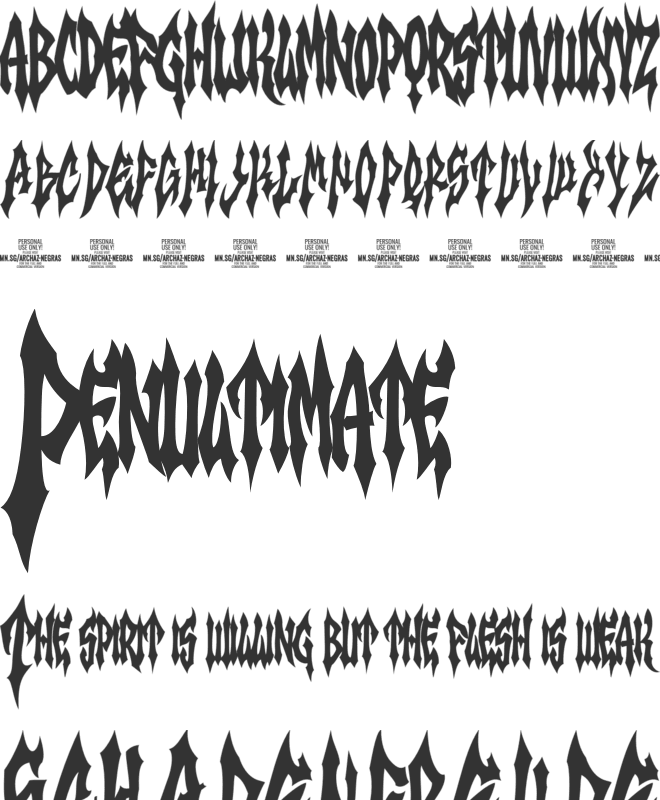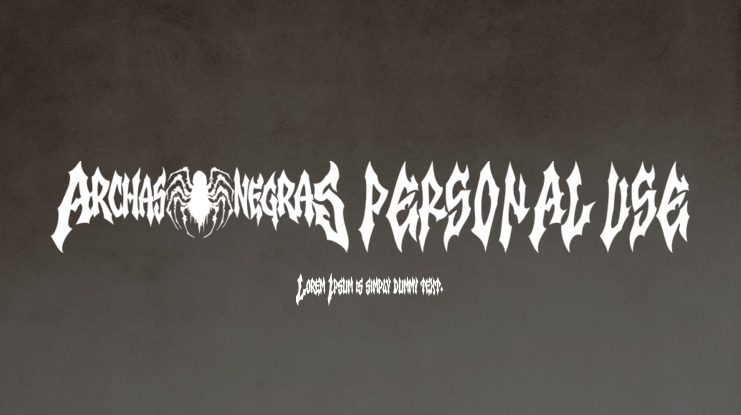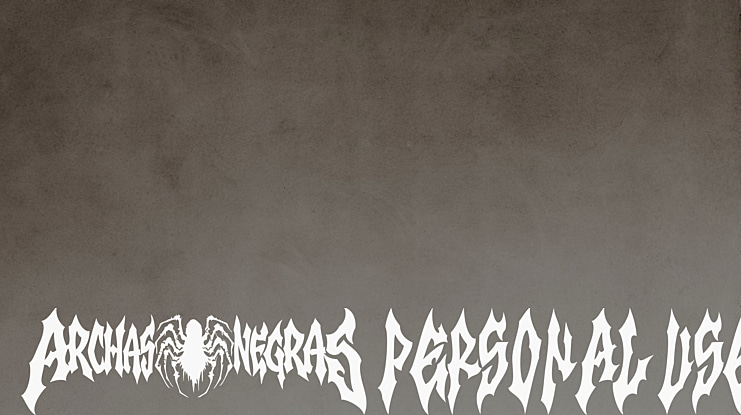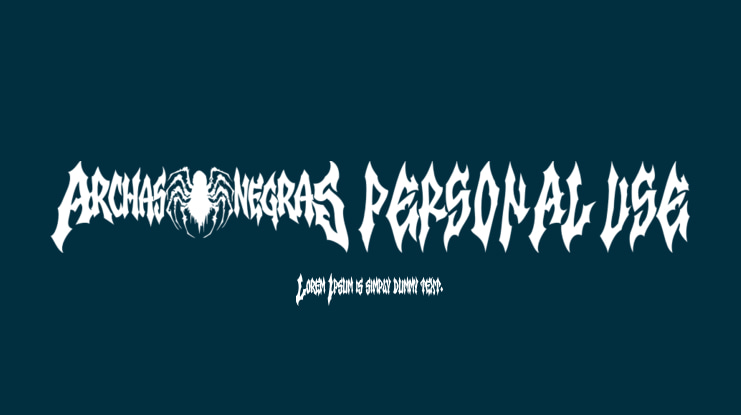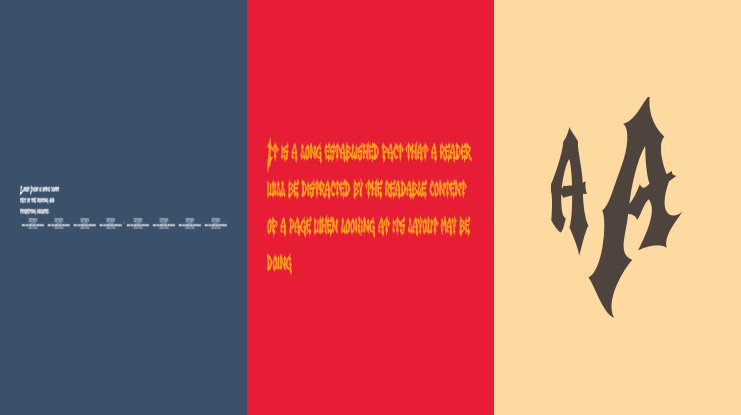
Archaz Negras PERSONAL USE Font
Archaz Negras embodies the intense energy of death metal and carries an unsettling aura of horror.
Crafted meticulously by Mans Greback, this rugged font reflects the rebellious essence of rock and the enigmatic fascination of the unknown.
To make a word symmetrical, append % at the end.
Example: Metal%
To give a word wings, enclose it with { } [ ] .
Example: batstyle
Employ characters ¶ ¦ ‡ ¤ × ÷ ≠ ± to create symbols such as dragons, bats, and spiders.